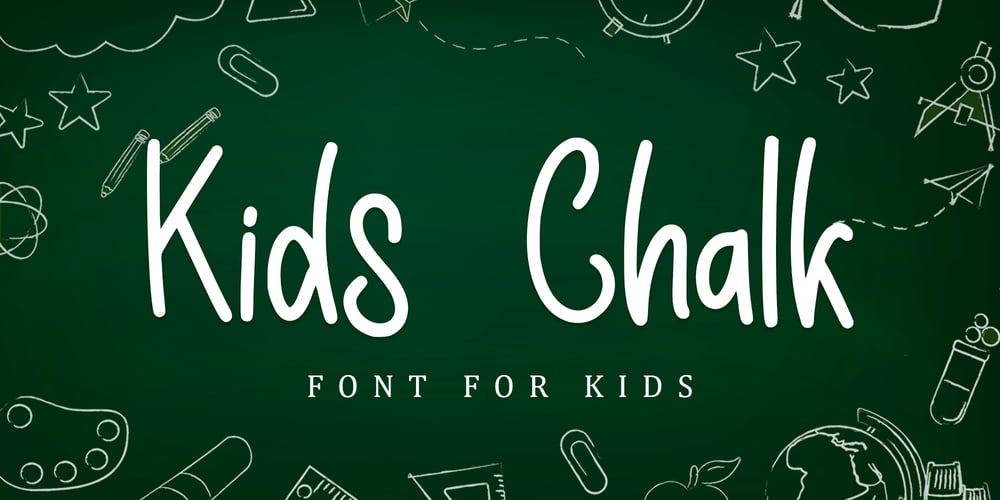
Kids Chalk Font Family was designed by Alif Ryan Zulfikar and published by Sakha Design. Kids Chalk contains 2 styles and family package options. Kids Chalk is a cute and friendly handwritten display font. Take your kid-friendly designs to the next level with this captivating font! Use it to create unique t-shirt designs, baby onesies, nursery decorations, digital designs, cards, and many more.